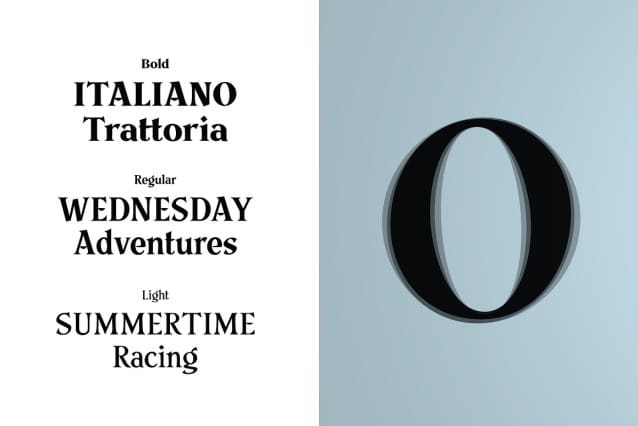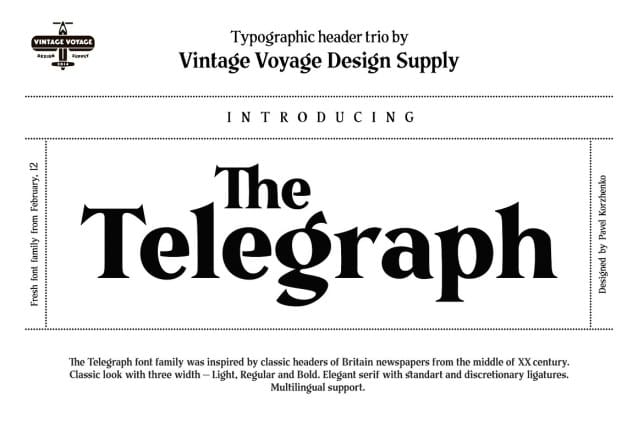
The Telegraph Font
The Telegraph font family was inspired by classic headers of Britain newspapers from the middle of XX century. Classic look with three width – Light, Regular and Bold. Great for headers, signs or logos. Also, working well for text blocks.
TheTelegraph Light: Use it for text blocks, or for gently light header typographic. Try to make more wide tracking with capitals, it looks good.
The Telegraph Regular: Great for simple message, quotes, subheaders (If the header is Bold) or advert slogans.
TheTelegraph Bold: Is a killing title buddy. Massive, strong, bold and in the same time – very gentle. Perfectly for main words, headers, signs or logo’s.
The Telegraph has full glyph set with standard and discretionary ligatures (Open Type Features).